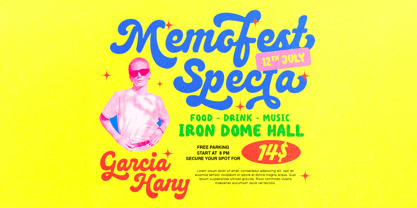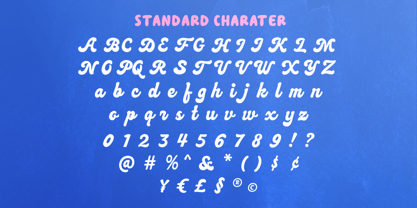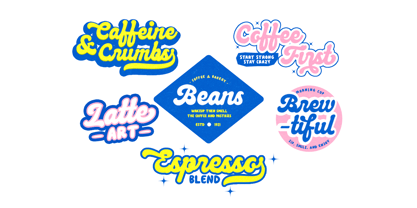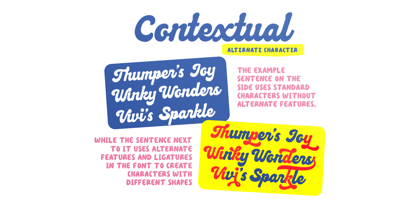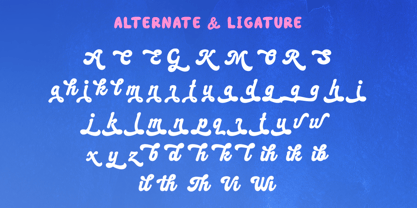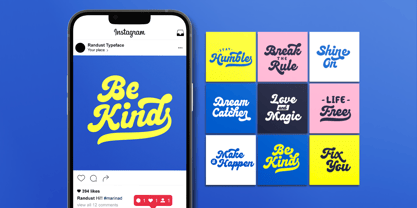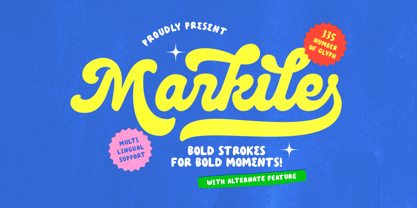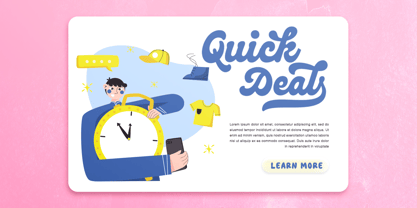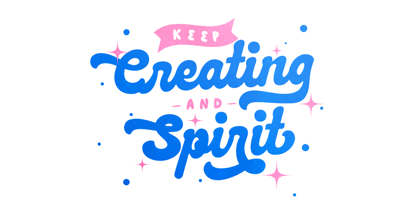
Markile
by Bale Type
The Markile Font Family was designed by Sarid Ezra and published by Bale Type. Markile contains 1 styles.
Markile is a bold script with rounded shape. This script is suitable for logotype, branding, or quotes. With bunch of alternates that you can use with opentype features, you can make your designs more stunning and fancy. Markile also support multi language.